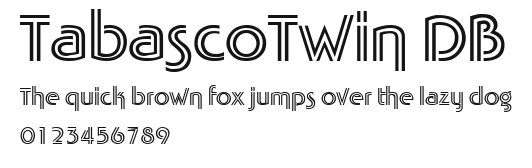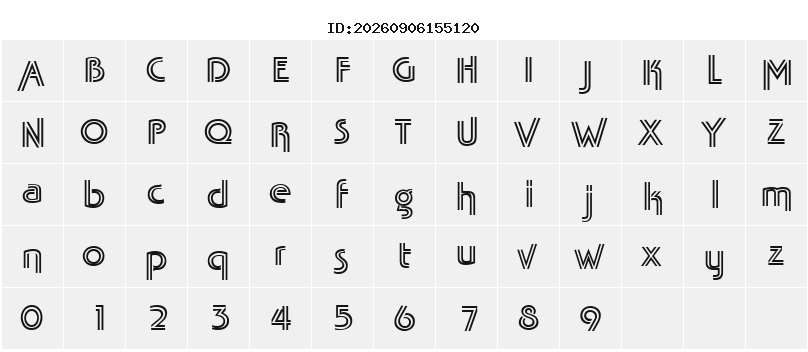
• Font Name: TabascoTwin DB
• Full Font Name: TabascoTwin DB
• PostScript Name: TabascoTwin
About TabascoTwin DB.ttf
TabascoTwin DB.ttf is a modern, elegant sans-serif font designed for ultimate readability and visual harmony. Perfect for branding, headlines, web design, and print materials.